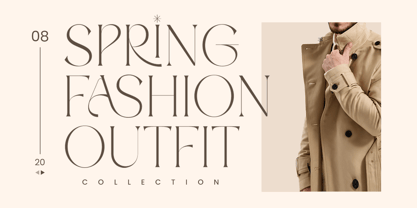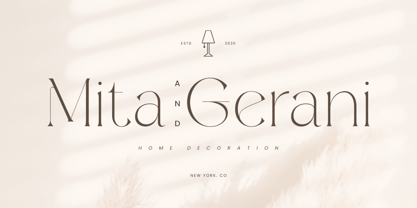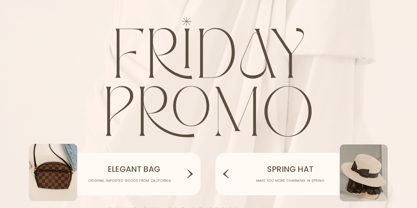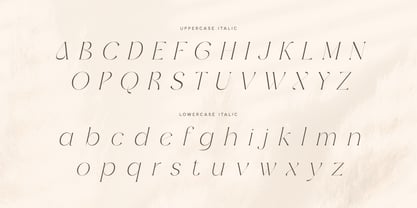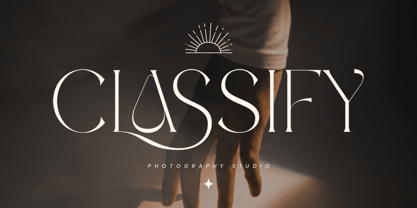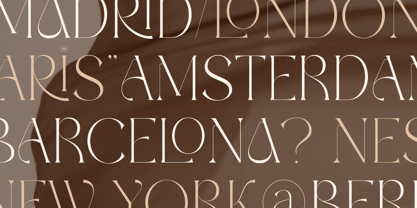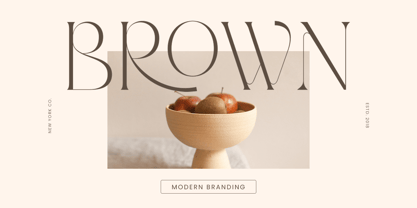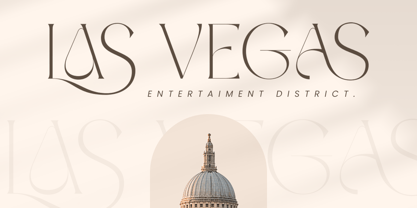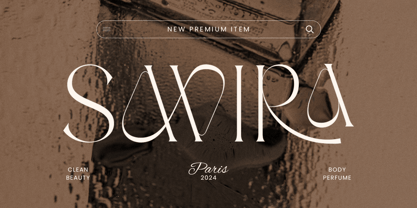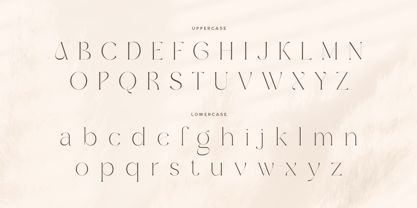
Glossy SS
La familia tipográfica Glossy SS fue diseñada por Zamroni Hamzah y publicada por Sensatype Studio. Glossy SS contiene 2 estilos y opciones de paquete familiar. Más información sobre esta familia
Glossy - Modern Elegant Luxury Font
Glossy is a font crafted for those who seek modern elegance in their designs. With its sleek and luxurious style, Glossy brings a refined touch to any project, making it the perfect choice for upscale branding, fashion, and editorial designs. Its balanced and graceful curves create a timeless aesthetic that stands out in any context.
Inspired by luxury and sophistication, Glossy elevates your designs to a new level of professionalism. Whether you're working on logos, invitations, or packaging, this font ensures your work exudes class and exclusivity. Its versatility makes it a go-to choice for projects that demand a premium look.
Glossy is more than just a pretty font—it’s functional and versatile. With unique alternative characters and extensive multilingual support, it’s designed to meet the diverse needs of designers worldwide. Elevate your designs with the modern elegance of Glossy.
Glossy Modern Elegant Luxury Font Features:
• Unique Alternative Characters Ready
• Punctuation, Number, and Symbol
• Uppercase and Lowercase
• Multilingual Support
• Opentype Features